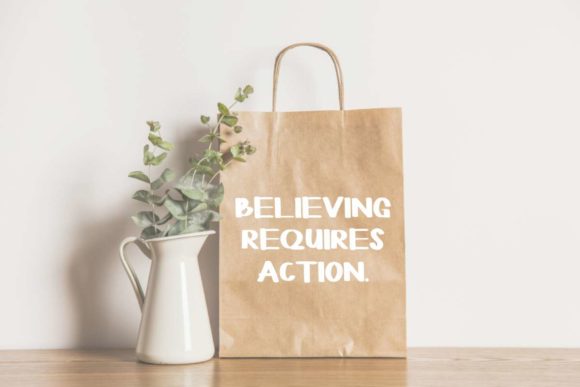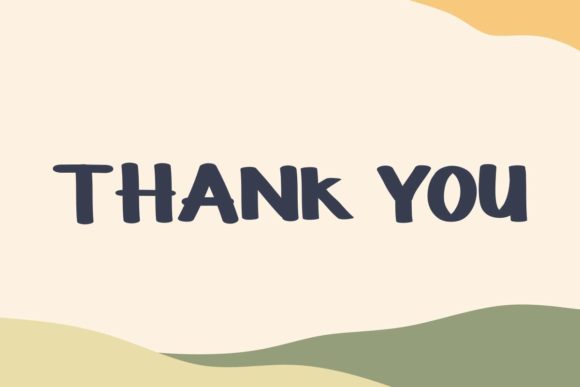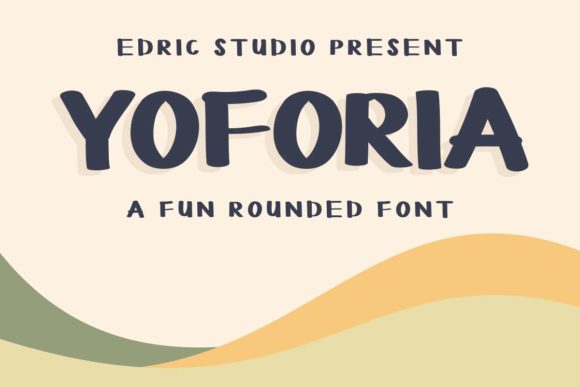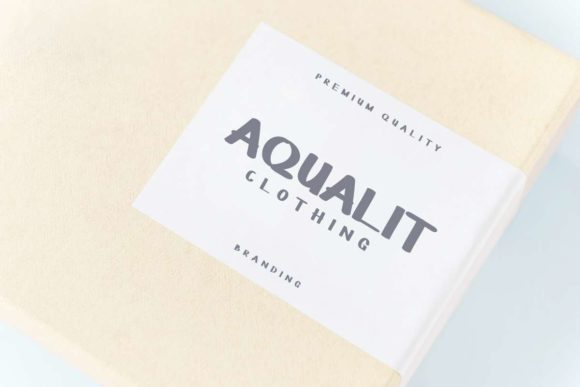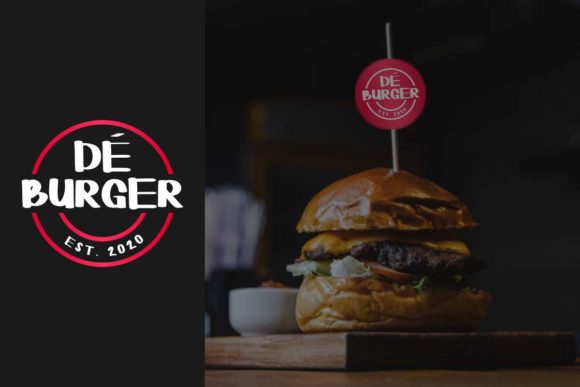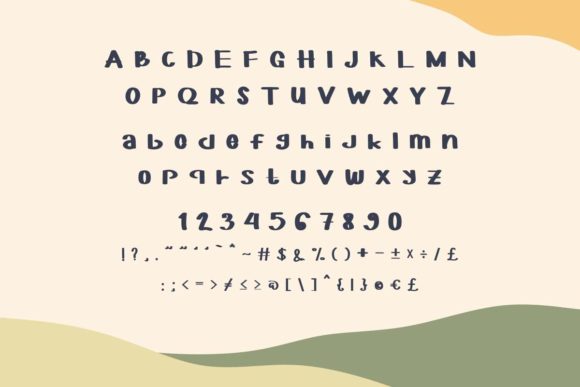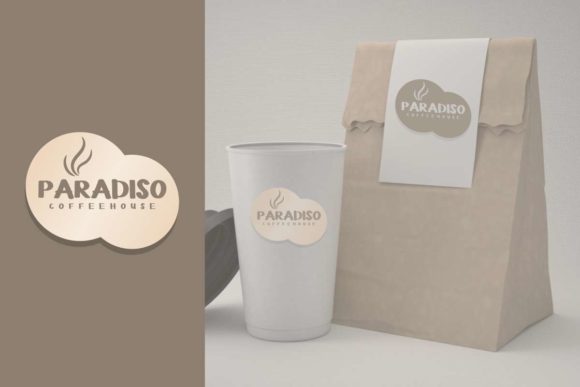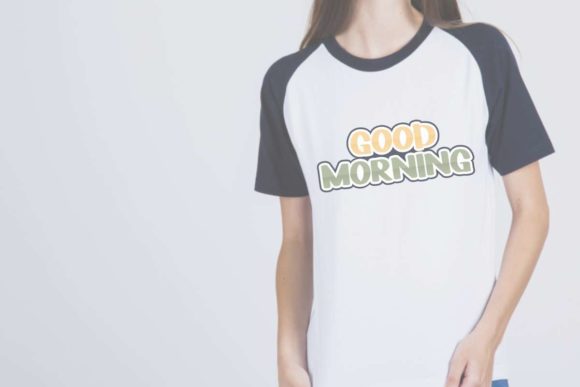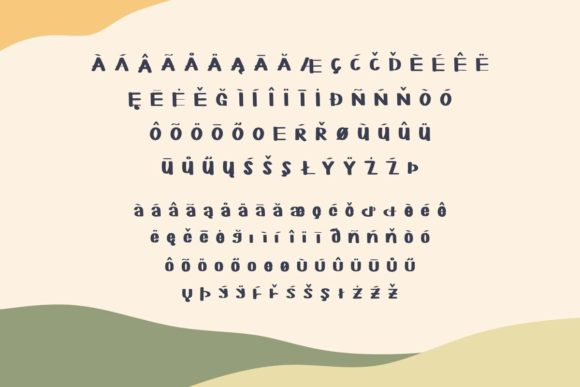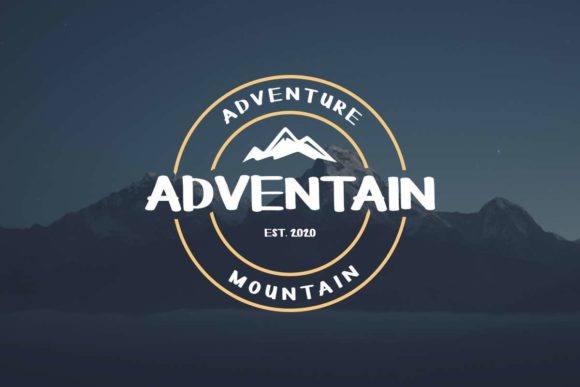
Yoforia Font
About Yoforia Font
Yoforia is a bold and elegant handwritten font, created by using a brush pen. Use this gorgeous and unique font to bring any DIY project to life!